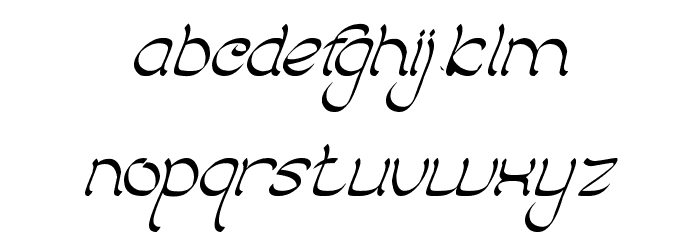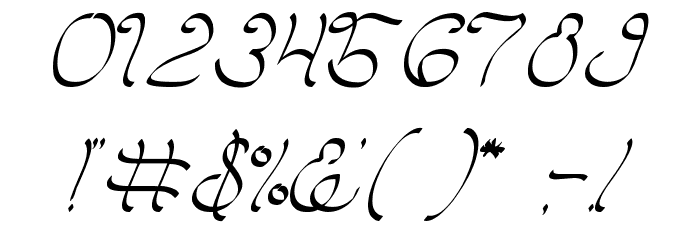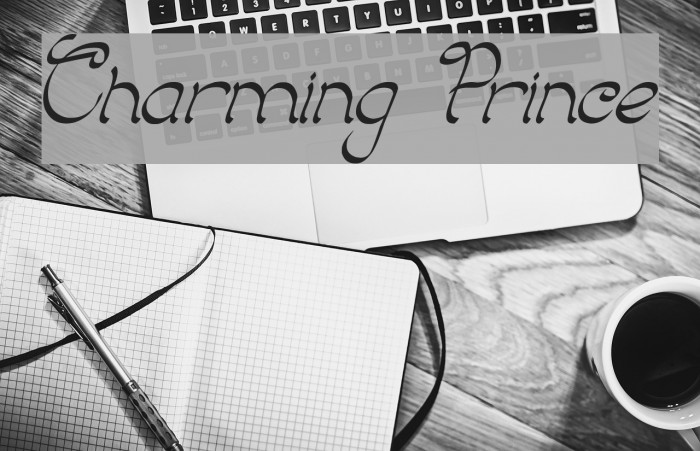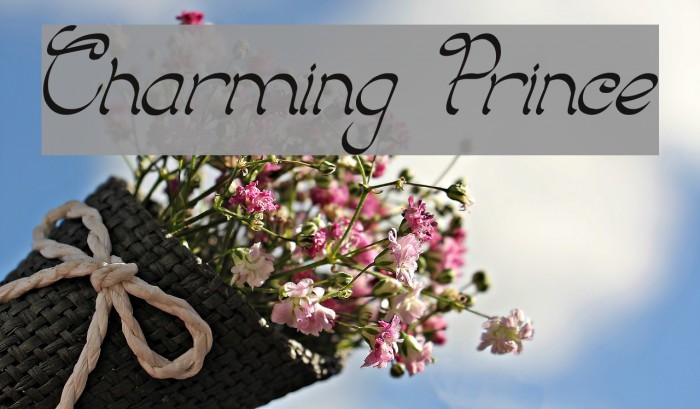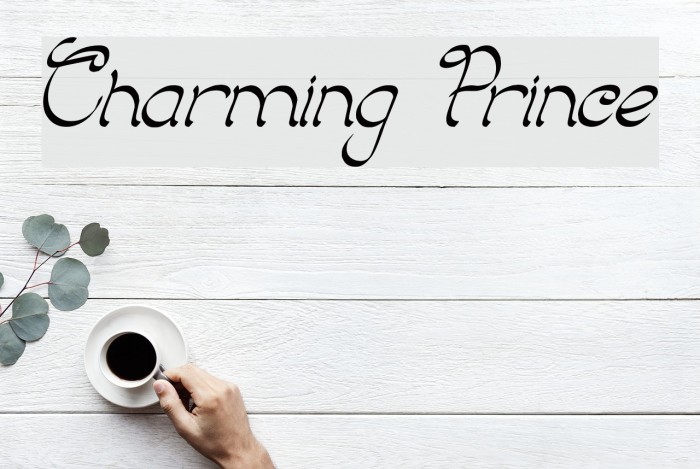
Charming Prince Font
This font features an elegant and flowing script style, characterized by its ornate and decorative letterforms. Each character is crafted with intricate curves and loops, giving it a whimsical and sophisticated appearance. The uppercase letters are particularly elaborate, with unique flourishes that add a touch of grandeur. The lowercase letters maintain a consistent style, complementing the uppercase with their own subtle embellishments. The numerals and special characters follow the same design principles, ensuring a cohesive look across all glyphs. This font is ideal for projects that require a touch of elegance and creativity.
An elegant and ornate script font with intricate curves and decorative flourishes.
- Proposed Projects: Ideal for wedding invitations, luxury branding, greeting cards, and high-end product packaging.
- Use Case: Logos, Invitations, Decorative text